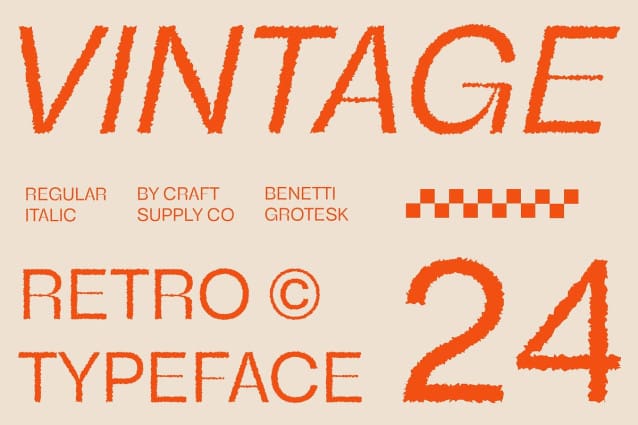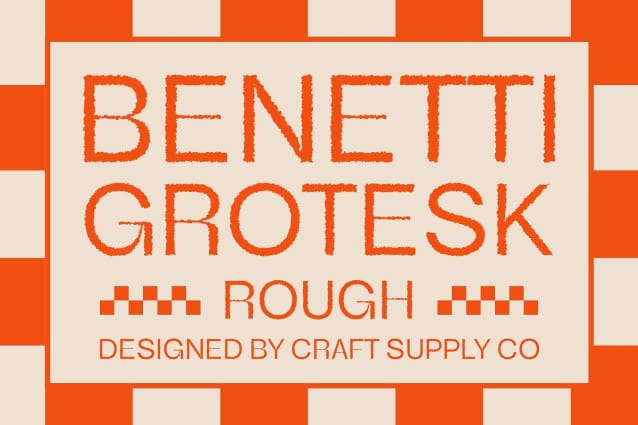
Benetti Grotesk Rough Font
Benetti Grotesk Rough Font : Bold and Inspired Display Typography.Modern Twist on Swiss Sans Benetti Grotesk Rough draws inspiration from the timeless grotersque Swiss sans serif style, infusing it with a modern twist. Its clean lines and geometric shapes pay homage to the classics while offering a fresh perspective.
Rough Texture for Added Depth The rough texture applied to This font adds depth and character to each letterform. This unique feature sets it apart, making it an ideal choice for impactful display projects that demand attention.
Versatile Display Applications Designed specifically for display purposes, This font excels in a variety of applications. From posters to digital interfaces, its bold and distinctive appearance ensures readability and visual appeal in every context.
Seamless Integration With its seamless integration into both digital and print environments, This font offers flexibility and adaptability. Whether used in branding, advertising, or editorial design, it delivers consistent results with flair.
Modern Elegance with a Twist This font stands as a testament to modern elegance with its inspired blend of Swiss sans serif tradition and contemporary rough texture effects. Elevate your display projects with this versatile and eye-catching typeface, guaranteed to make a lasting impression.